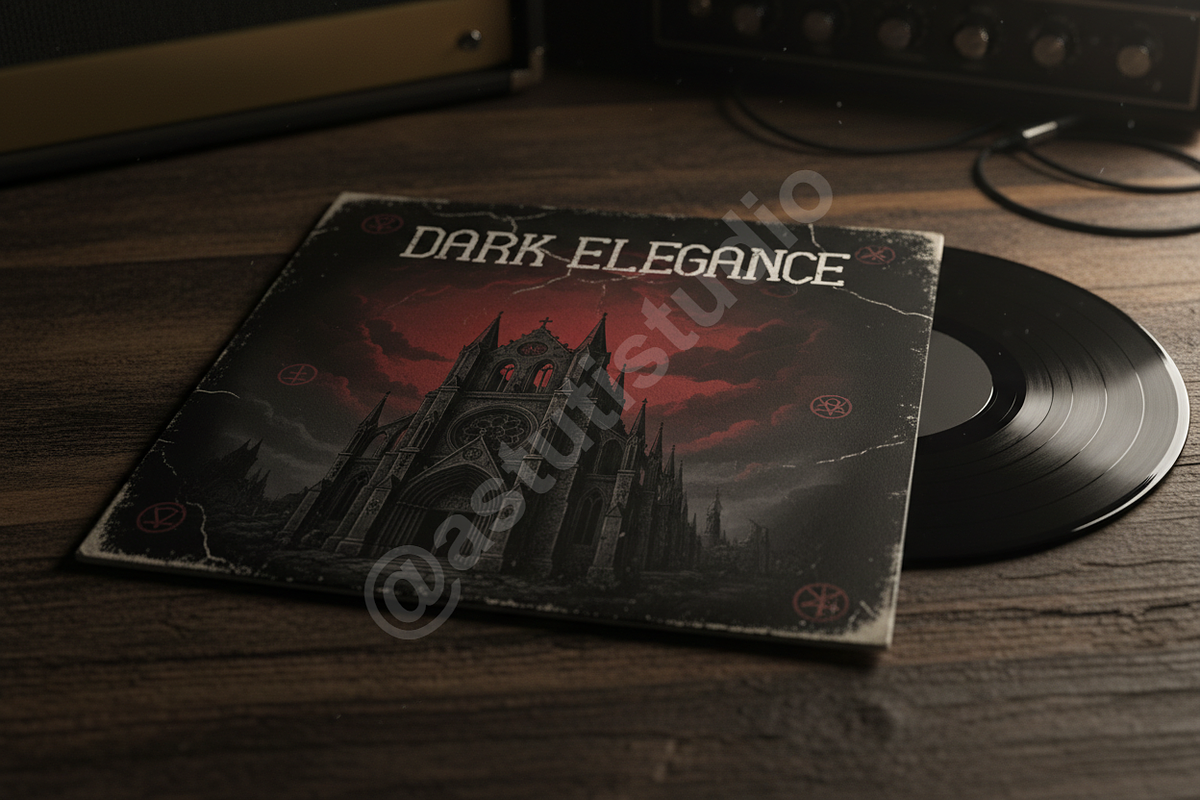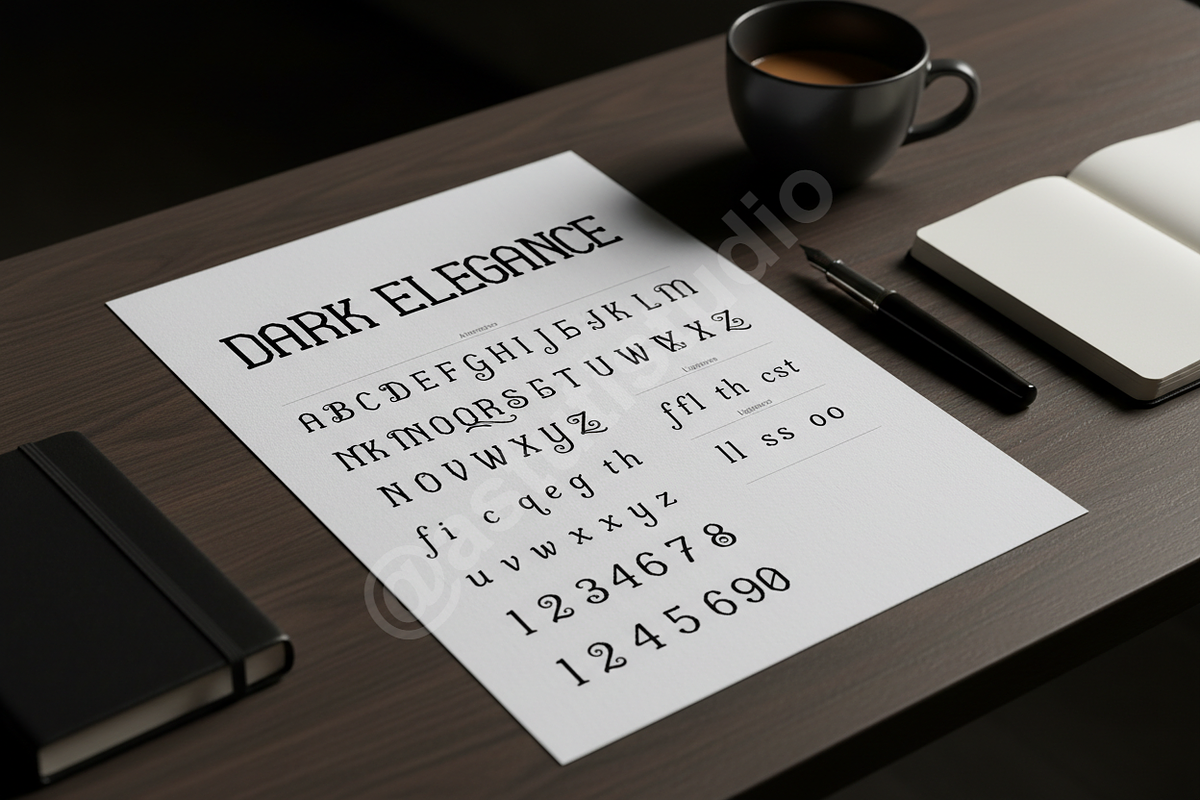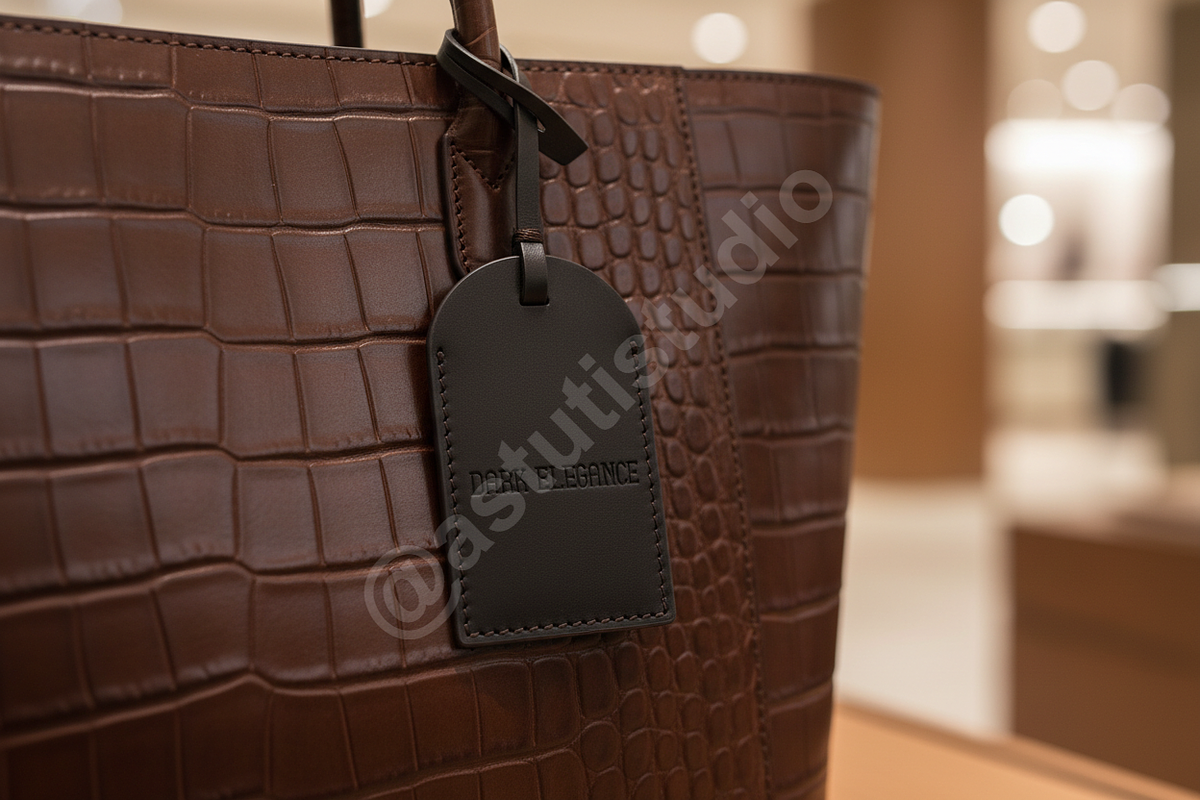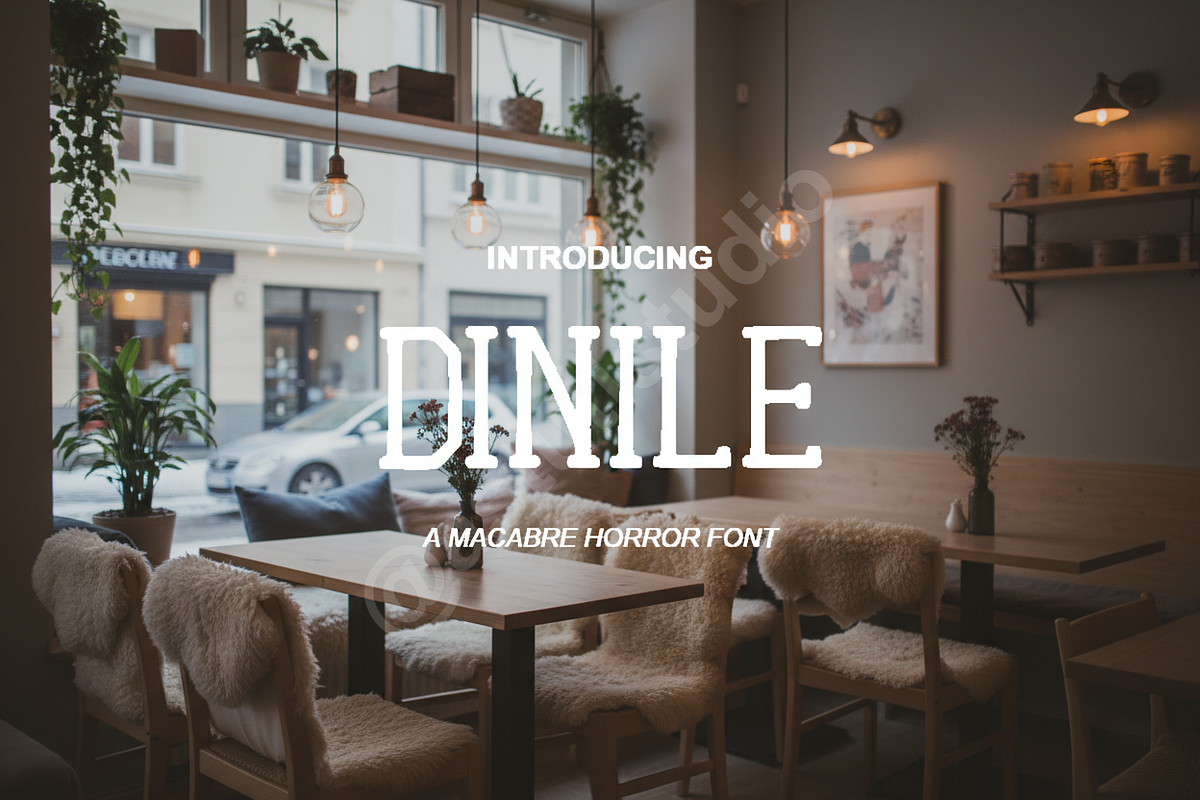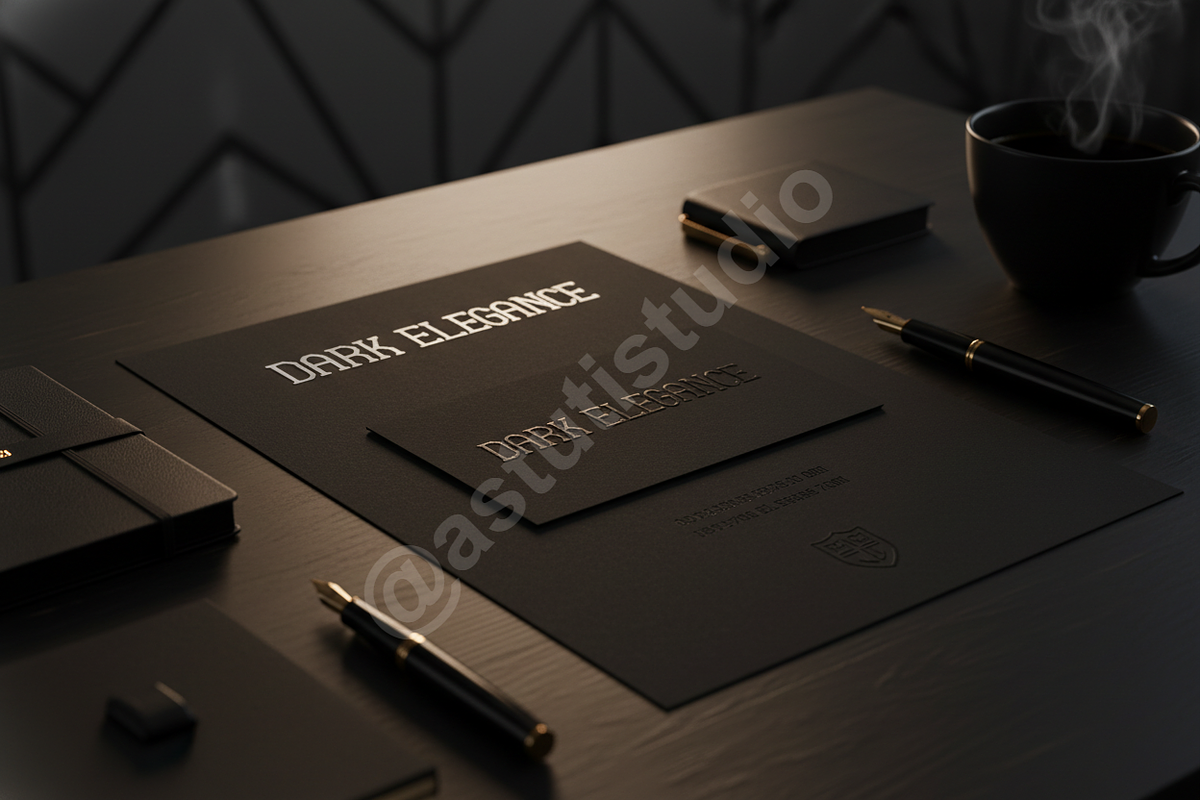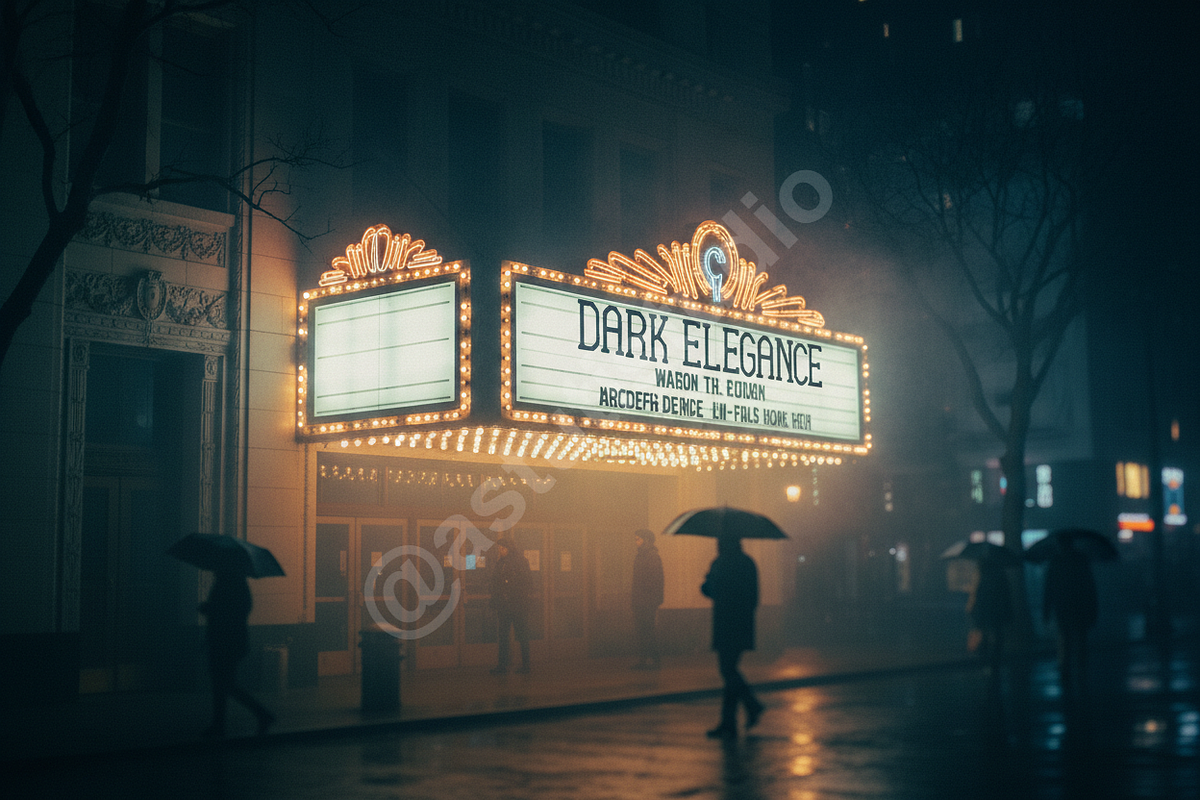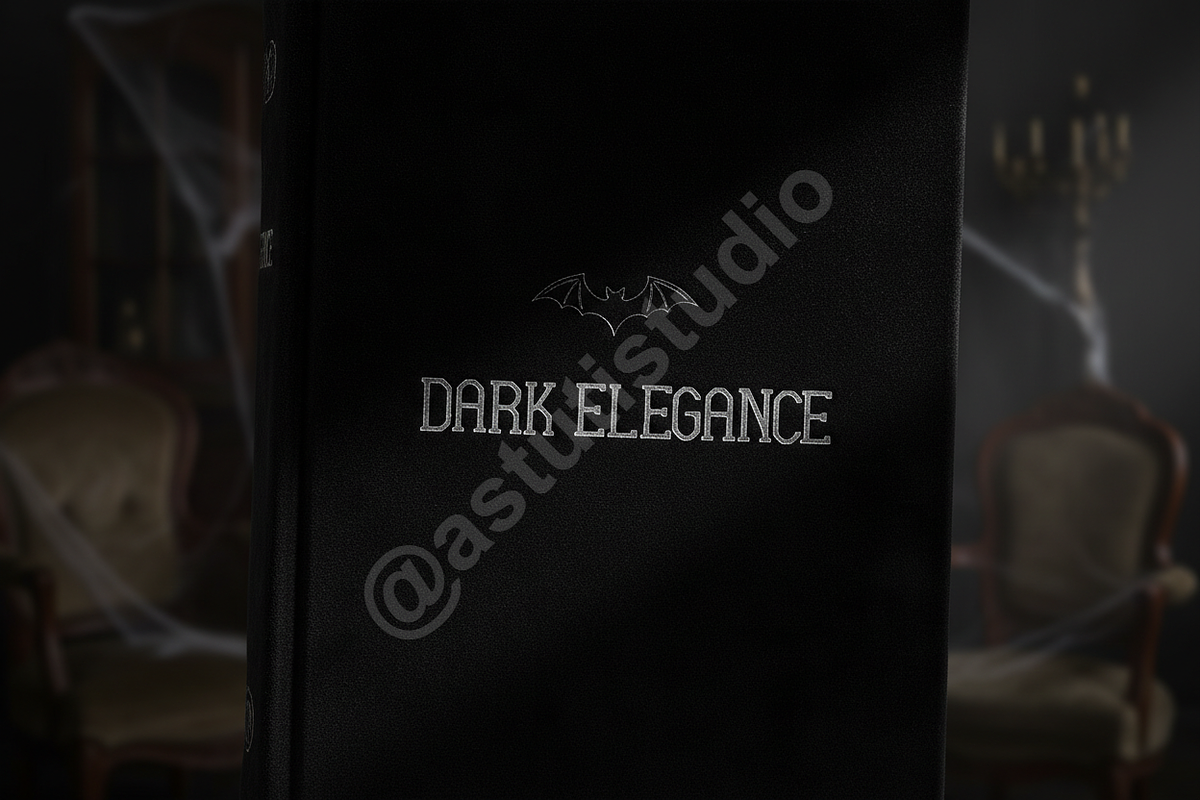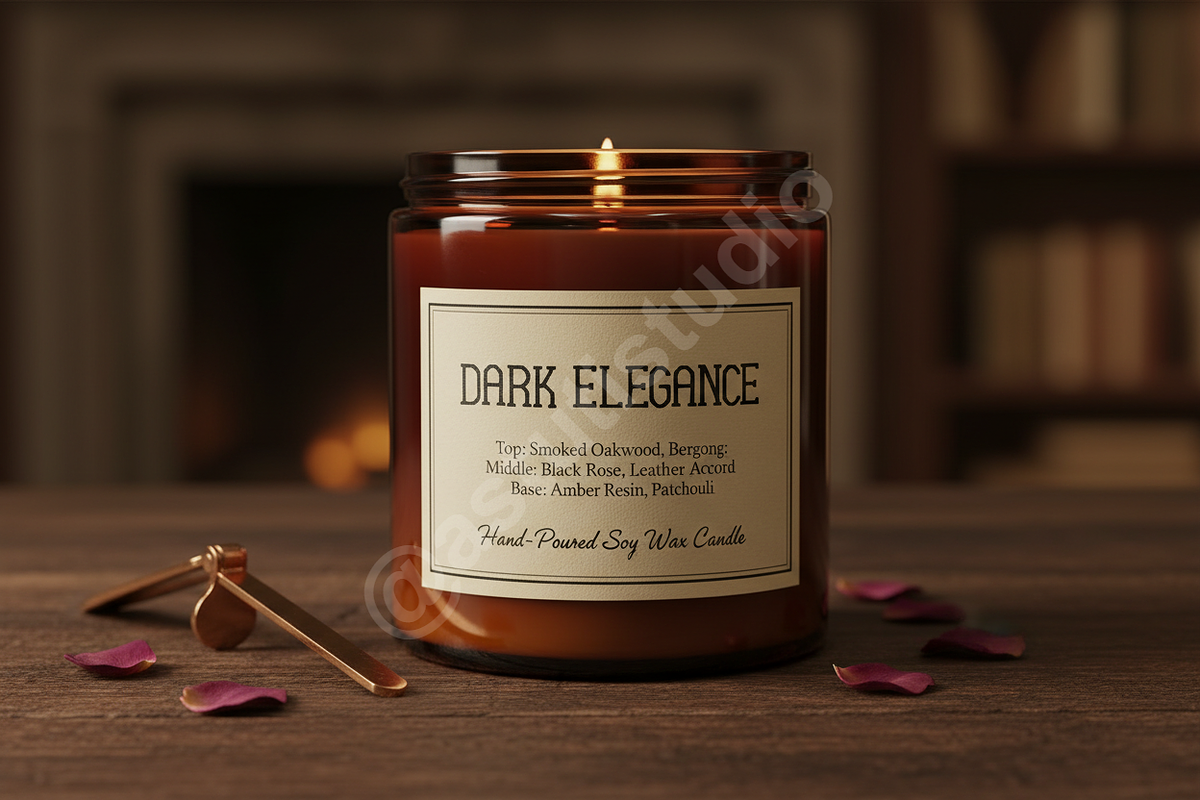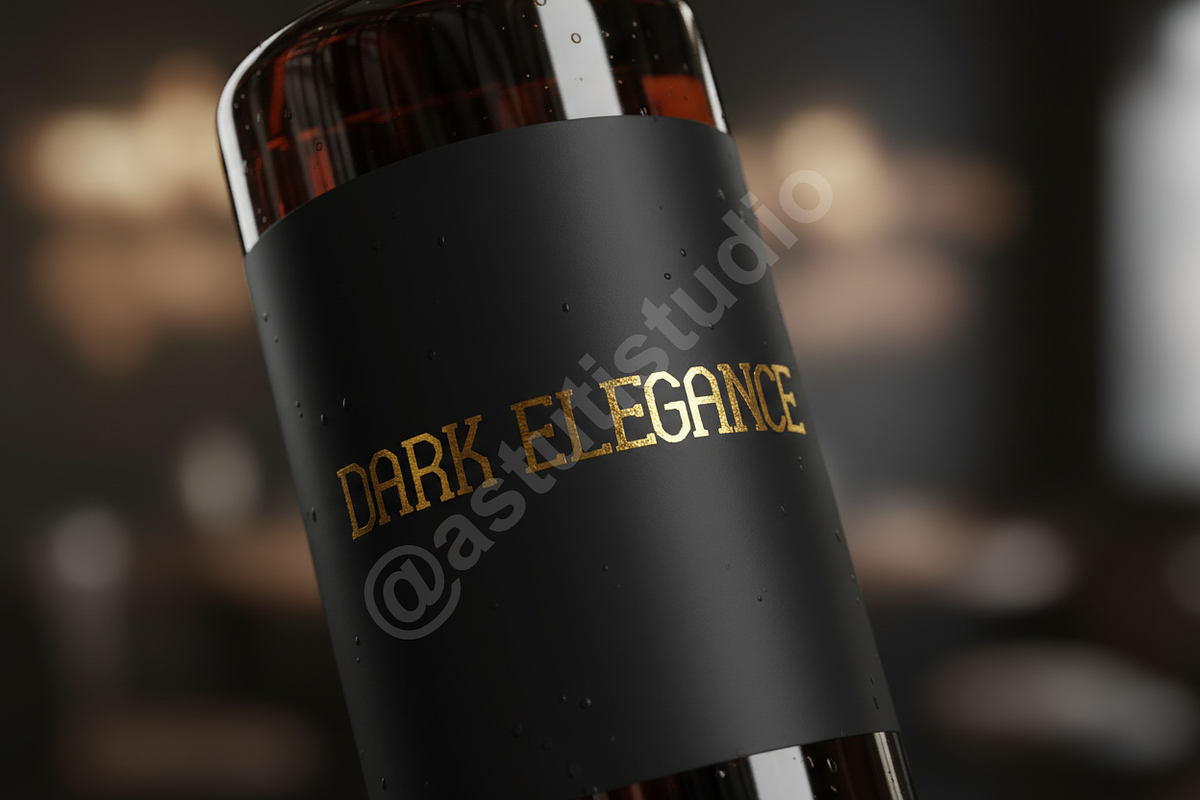
Dinile: High-End Luxury Serif Typefa
Introduction Dinile is a sophisticated serif typeface designed for the discerning creative professional. Drawing inspiration from timeless European typography while offering modern clarity, Dinile provides the perfect visual anchor for high-stakes projects. It ensures that your branding, editorial layouts, and digital content resonate with undeniable luxury and refinement. Its balanced structure and elegant contrast make it immediately suitable for luxury branding, refined editorial design, and impactful social media campaigns.
Key Design Features
- Elegant High Contrast: Perfectly balanced strokes for maximum visual impact in both print and digital environments.
- Optimized for Display: Exceptional readability and presence when used in headlines, logos, and large format printing.
- Full Multi-Lingual Support: Extensive character set covering most Western and Central European languages (20+ total).
- Comprehensive Glyphs: Includes full punctuation, numerals, standard ligatures, and stylistic alternates.
- Versatile Application: Ideal for fashion magazines, high-end packaging, sophisticated social media quotes, and corporate identities.